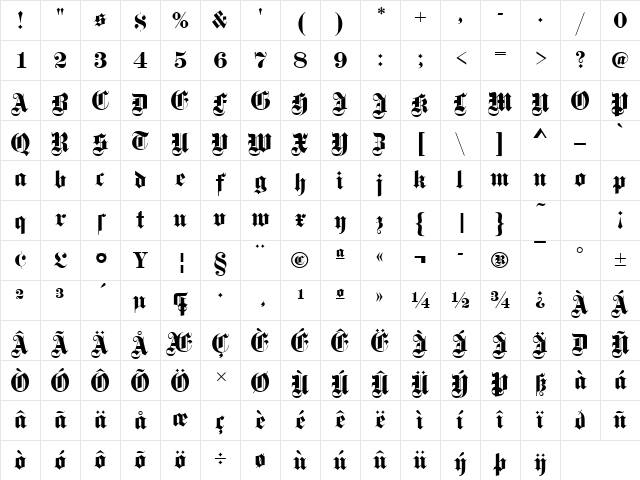
Fette Becker Gotisch Regular
Design Context for Fette Becker Gotisch
Fette Becker Gotisch is a composed and adaptable typeface that performs quietly and consistently across a wide range of design contexts.
Pro Tip: Use Fette Becker Gotisch in both headline and body roles to test its range before committing to a single application.